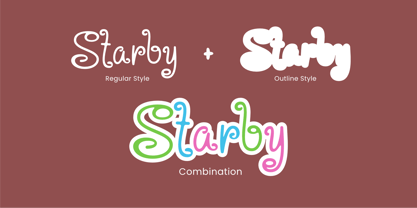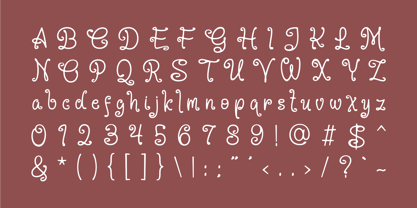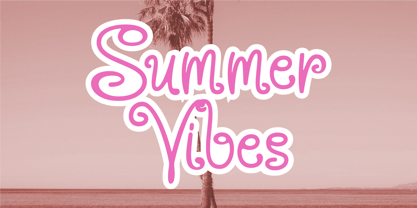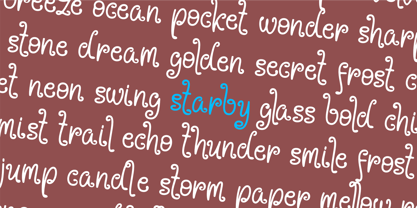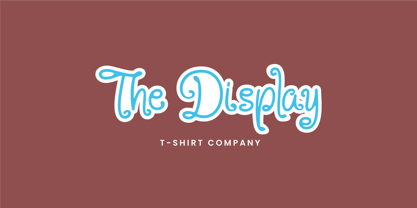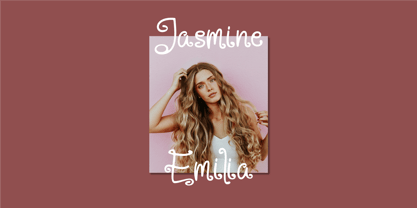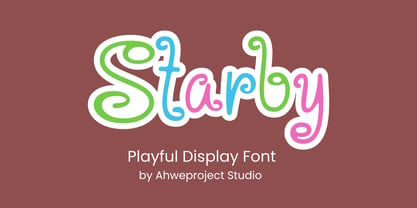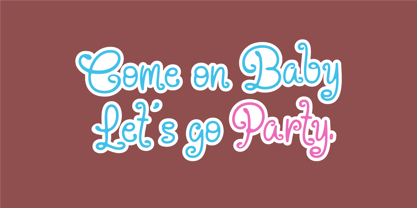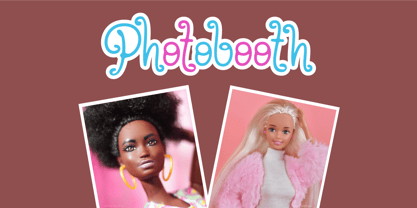
Starby
The Starby Font Family was designed by Dida Ahluddin and published by ahweproject. Starby contains 2 styles and family package options. More about this family
Bring joy and charm to your designs with Starby, a colorful and playful display font designed to capture attention and spark imagination. With its curly swirls, bold strokes, and cheerful vibe, Starby is perfect for kid-themed projects, cartoon logos, birthday invitations, educational materials, and more. Each letter in Starby dances with personality—blending quirky curves and vibrant energy into a font that stands out in both print and digital creations. Whether you’re designing for a children’s brand, playful packaging, or fun social media graphics, Starby adds the perfect touch of happiness and creativity. Features: - Uppercase & lowercase - Numbers and punctuation - Multilingual - Alternates - Ligatures - PUA encoded - Perfect for logos, posters, books, and crafts We strongly recommend using applications that support Opentype Features and Glyphs panels such as Adobe Apps and Corel Draw. So you can see and access all the variations of Glyphs. Happy Design! Let your design play with Starby — the font that makes every word feel like a party!